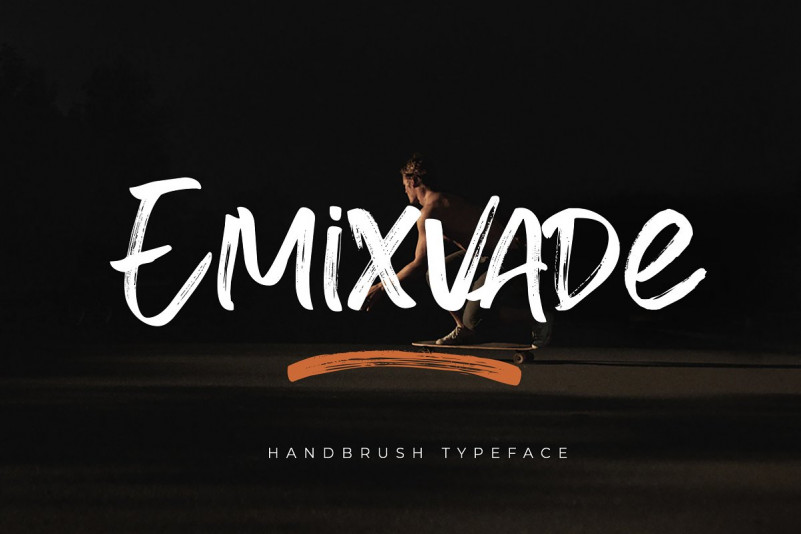
Emixvade Font
Emixvade is a Handbrush Typeface. It’s a Handbrush Script Font with authentic style. This font is made with a brush pen with very careful techniques, so the results are charismatic and have enchanting characteristics.